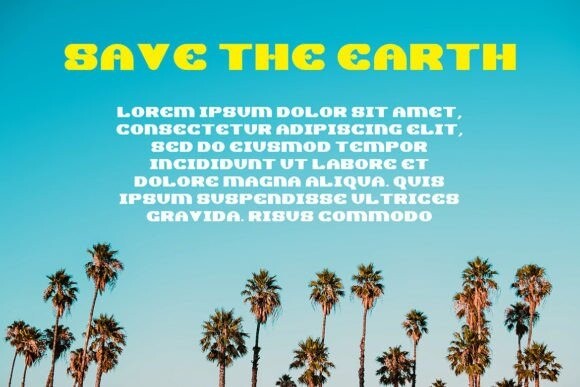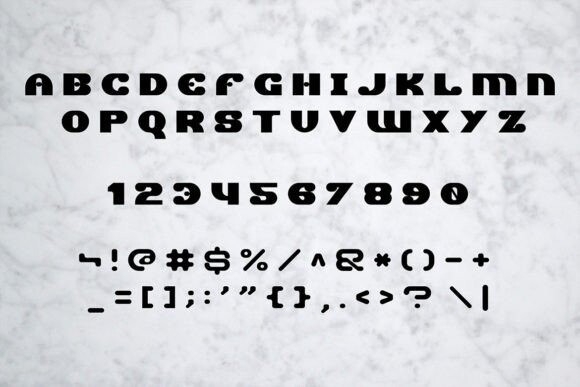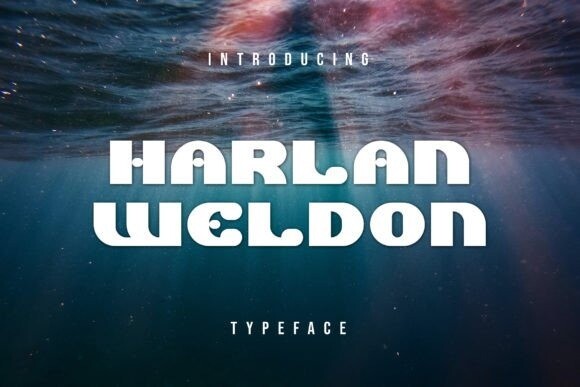
Harlan Werdon Modern Font
Harlan Weldon is a fun and playful display font. A little bit quirky, this font looks incredibly adept in a wide variety of contexts!